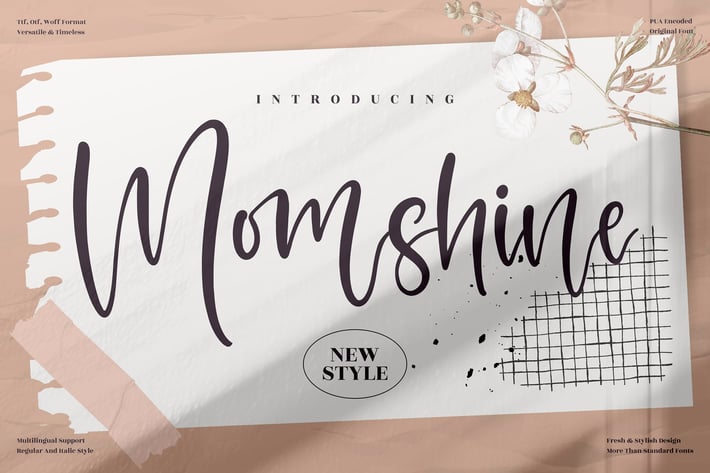
Momshine Handwritten Font
Momshine is a fresh handwritten font that combines playful energy with timeless style. Featuring bold strokes and smooth curves, this font adds a personal touch to every design. Its versatility makes it perfect for creative projects that need warmth, charm, and authenticity.
+ Handwritten script style
+ Uppercase, lowercase, numbers & punctuation
+ Alternates & ligatures
+ Multilingual support
+ Branding & logo design
+ Social media posts & quotes
+ Wedding invitations & stationery
+ Greeting cards & thank you notes
+ Packaging & product design
+ Lifestyle & fashion projects
Bring a playful yet elegant vibe to your designs with Momshine — a handwritten font that shines with charm and originality.